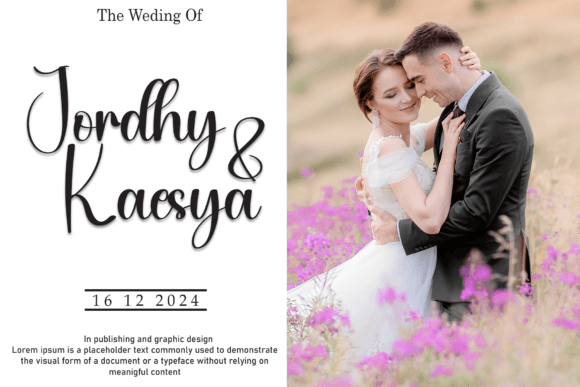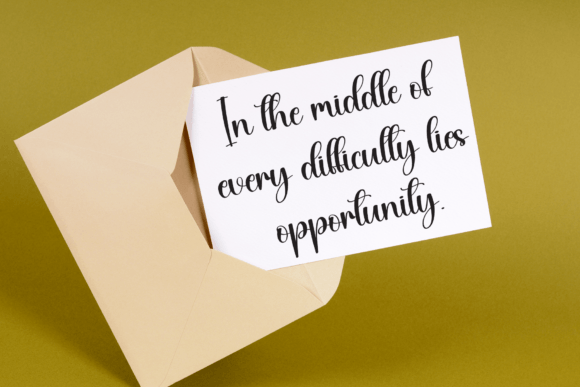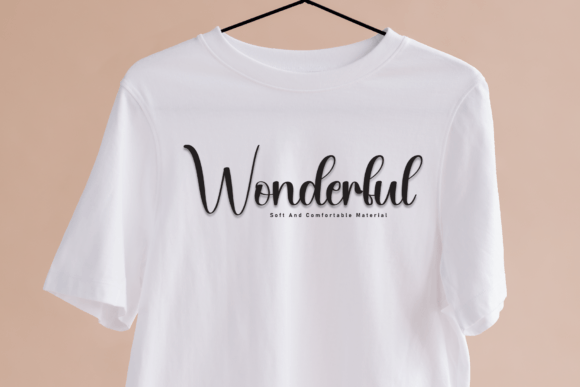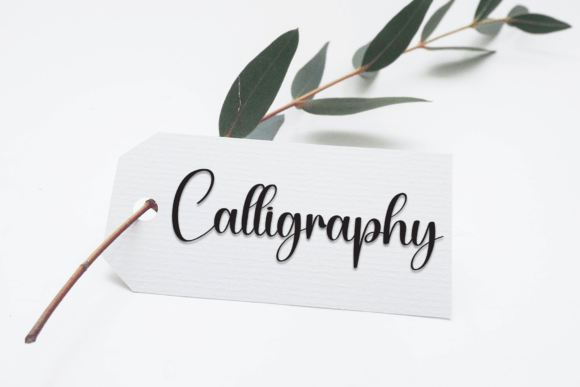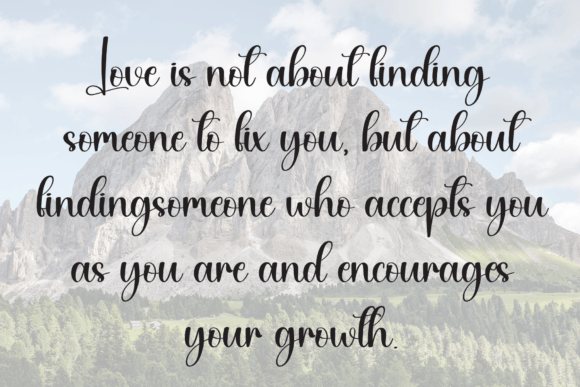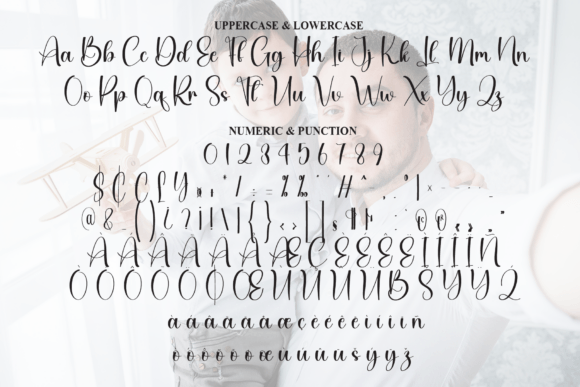
Introducing Father Font: Elevate Your Designs with Elegance and Modern Flair
In the world of typography, a well-crafted font can make all the difference in elevating a design from ordinary to extraordinary. Meet Father Font, a stylish handwritten script font that seamlessly blends elegance with a modern twist. This versatile typeface is designed to bring warmth, sophistication, and a personal touch to a wide range of projects, from branding and invitations to social media and beyond.
The Characteristics of Father Font
Father Font boasts flowing strokes and organic curves that give it a unique, handcrafted feel. Its elegant lines and refined structure make it perfect for designs that require a touch of sophistication. The font’s modern flair ensures that it remains fresh and contemporary, allowing designers to create stunning visuals that capture the attention of their audience.
Key Features of Father Font
- Elegant Handwritten Script: Father Font features a beautiful, handwritten script that adds a personal touch to any design.
- Flowing Strokes and Organic Curves: The font’s flowing strokes and organic curves create a sense of warmth and sophistication.
- Modern Flair: Father Font’s modern twist ensures that it remains fresh and contemporary.
- Versatile: Suitable for a wide range of projects, including branding, invitations, social media, and more.
Uses of Father Font
Father Font is an incredibly versatile typeface that can be used in a variety of design projects. Here are some of the most popular uses:
Branding
Create a lasting impression with Father Font’s elegant and sophisticated design. Use it for logos, business cards, and other branding materials to establish a refined and professional image.
Invitations
Add a touch of elegance to your invitations with Father Font. Its flowing strokes and organic curves make it perfect for wedding invitations, birthday parties, and other special occasions.
Social Media
Elevate your social media presence with Father Font’s modern and stylish design. Use it to create eye-catching graphics, quotes, and other visual content that captures the attention of your audience.
Why Choose Father Font?
With so many fonts available, why choose Father Font? Here are just a few reasons:
- Unique and Distinctive: Father Font’s elegant handwritten script and modern flair make it stand out from other fonts.
- Highly Versatile: Suitable for a wide range of projects, from branding and invitations to social media and more.
- Easy to Read: Father Font’s clear and refined structure ensures that it remains easy to read, even at smaller sizes.
Tips for Using Father Font
Here are a few tips for getting the most out of Father Font:
- Pair with Other Fonts: Combine Father Font with other fonts to create a unique and visually appealing design.
- Pay Attention to Spacing: Make sure to leave enough space between lines and words to ensure that your design remains clear and easy to read.
Father Font is a stylish and versatile typeface that is perfect for designers and crafters looking to add a touch of elegance and modern flair to their projects. With its flowing strokes, organic curves, and refined structure, this font is sure to elevate your designs and capture the attention of your audience. Whether you’re working on branding, invitations, social media, or more, Father Font is an excellent choice.